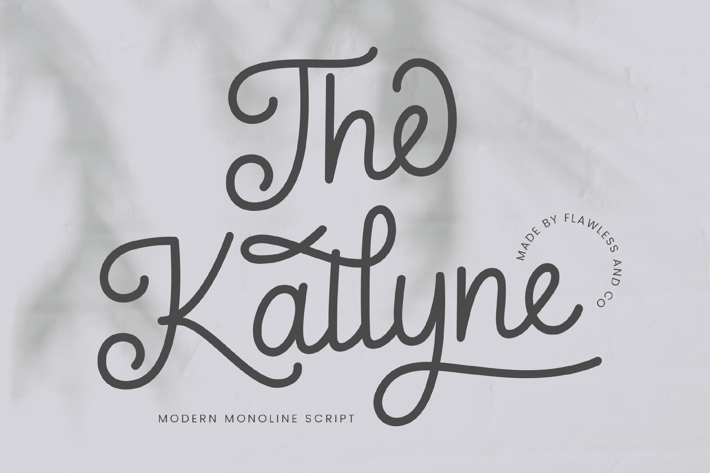
The Kallyne Monoline Script Font
Introducing "The Kallyne" - A Modern Monoline Script Font. This font is suitable for any graphic designs such as branding materials, wedding invitation, t-shirt, print, business cards, logo, poster, photography, quotes .etc
Experience the fusion of modern simplicity and timeless style with "The Kallyne," a contemporary monoline script font that adds a touch of elegance and versatility to your designs. With its fluid lines and effortless charm, "The Kallyne" is designed to convey a sense of modern sophistication and grace.
Uppercase alphabet A-Z
Lowercase alphabet a-z
Alternate Character
Numbers 0-9
Some punctuation